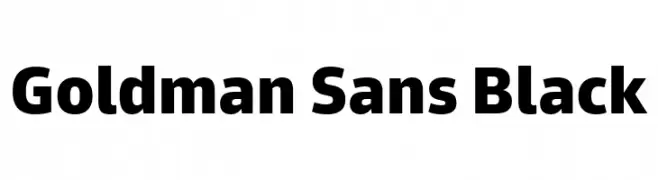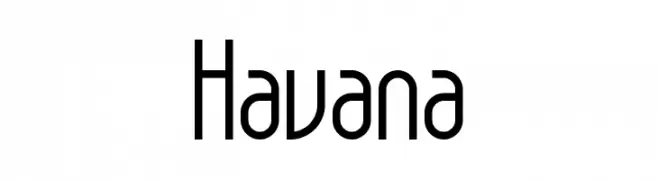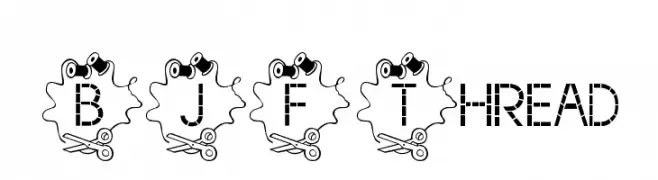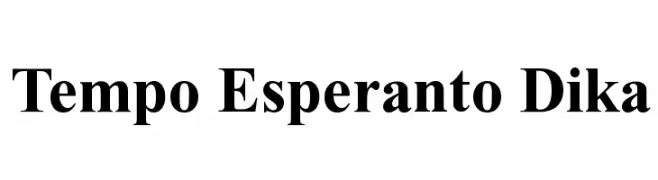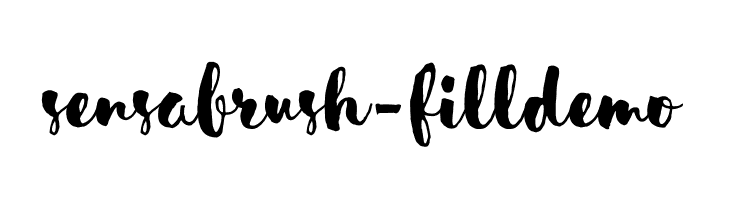
A bold, modern sans-serif font with strong, uniform strokes.
A modern, geometric font with clean, rounded edges and a condensed style.
An elegant and sophisticated font with graceful curves and tapered strokes.
A playful, stitched-style font with bold, geometric uppercase and lowercase letters.
A clean, modern sans-serif font with balanced proportions and clear readability.
A high-contrast, elegant font with artistic flourishes and a modern aesthetic.
A clean and modern sans-serif font with consistent stroke width and balanced spacing.